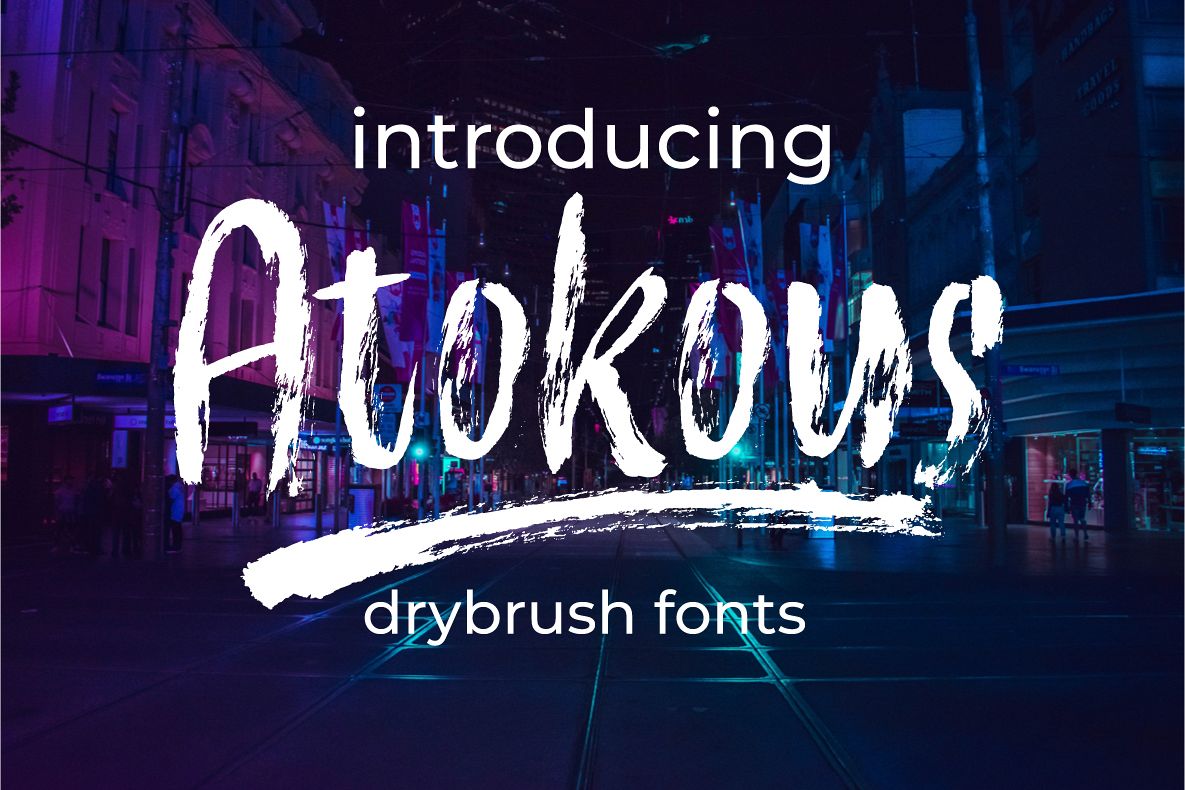
Atokous | Drybrush Fonts
Introducing, Atokous, a Handdrawn drybrush font from our collection, carefully crafted and full of imagination, rough textures that are typical of this font with swash.
This font is perfect for challenging jobs, titles, t-shirts, websites, hoodies, and various print and digital media with energy.
With extra attention to quick strokes and sharp details, is ideal for logos, apparel, quotes, product packaging, or anything which needs a typographic turbo-boost.